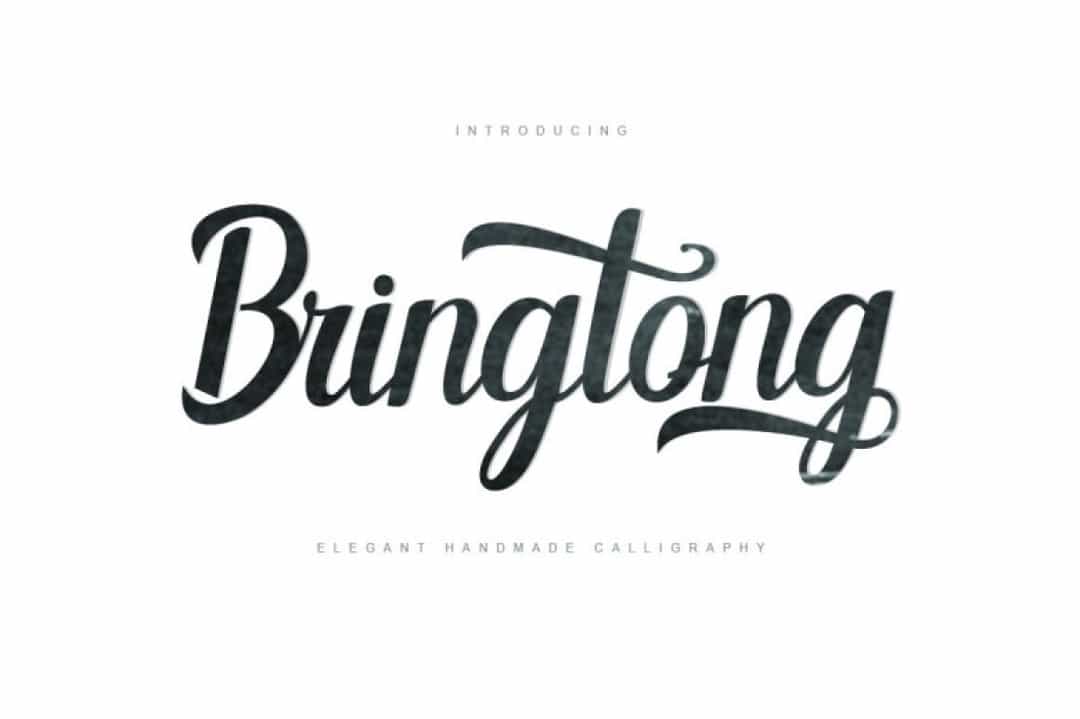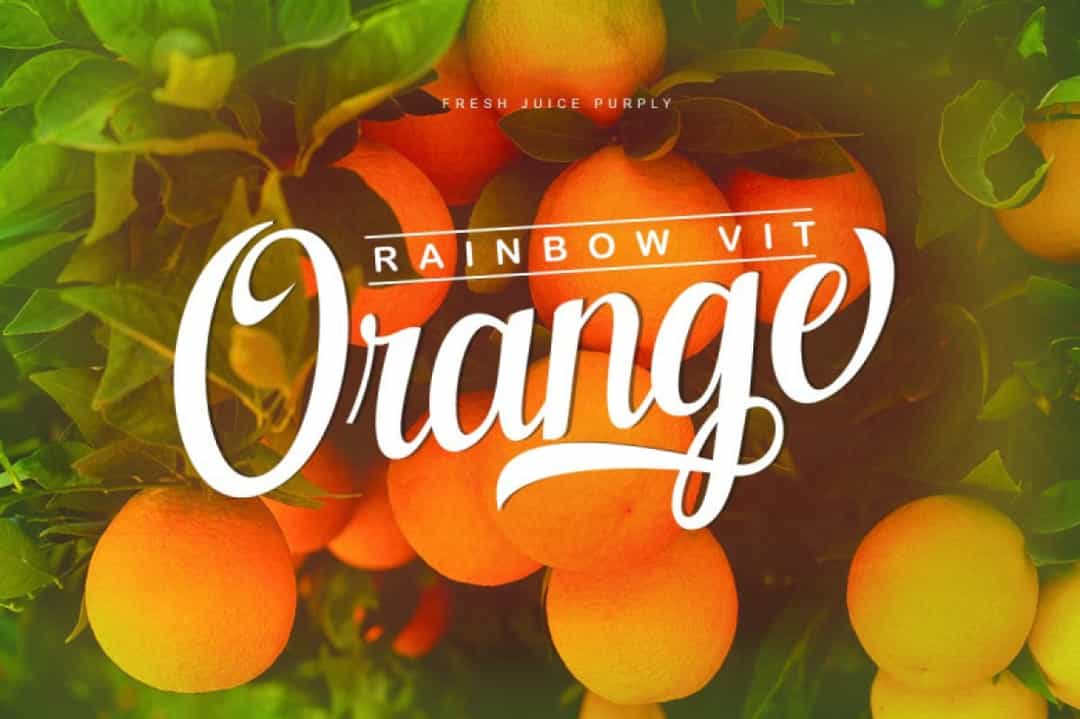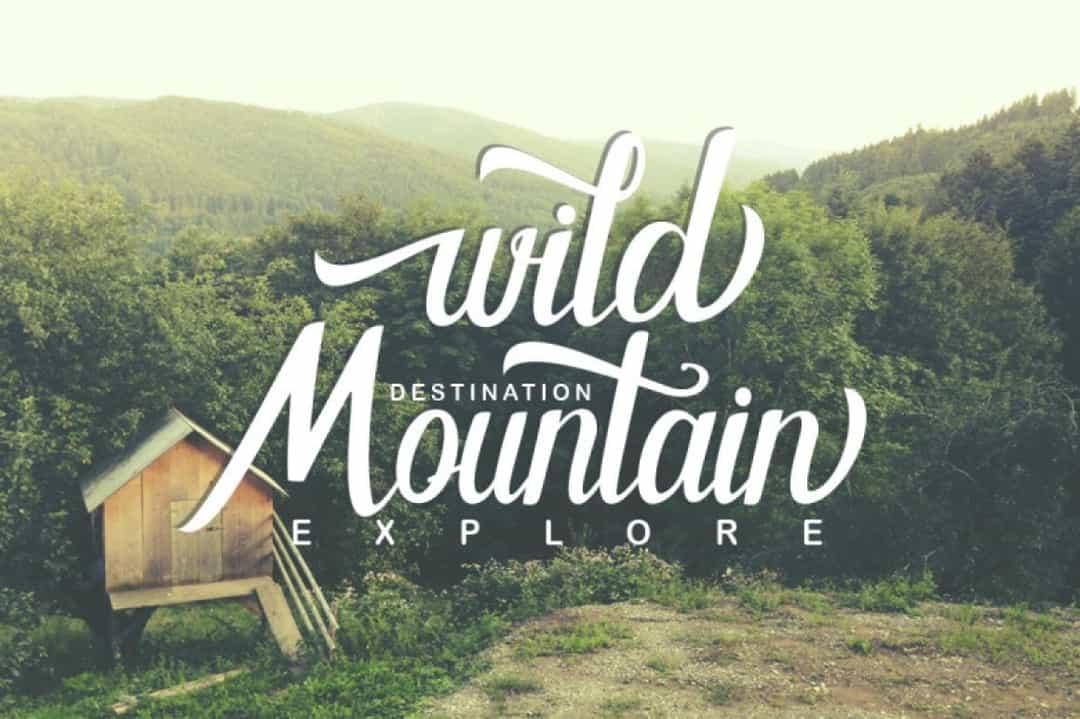
Bringtong is a calligraphic brush-script script inspired by Hot Rod lettering and sign painting. This extremely flexible script consists of swashes at its ends, caps with small letters inside them, an underline option and more than 362 characters!